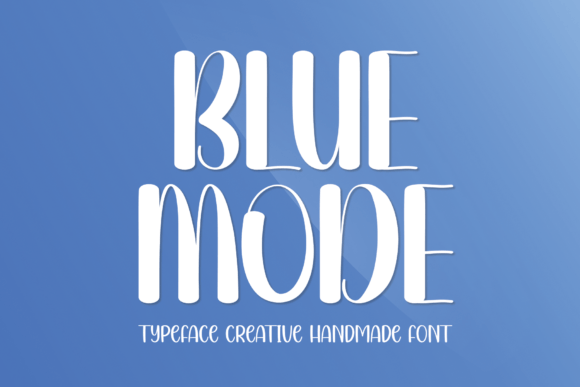
Journey into the world of typography and discover Blue Mode Font - a captivating handwritten font exuding charm and personality. Inspired by the artistry of calligraphy, it dances across the screen with a touch of elegance, making it the perfect choice for expressing your creativity. Whether it's for a wedding invitation, a heartfelt card, or a delightful design project, Blue Mode Font adds a dash of whimsy and warmth to every creation.
Indulge in the beauty of its carefully crafted strokes, each one a testament to the art of penmanship. Its free-flowing style brings a sense of authenticity, allowing your words to flow with grace and fluidity. Dive into a world of endless possibilities with Blue Mode Font, where imagination meets artistry.
With its versatility, Blue Mode Font adapts seamlessly to a myriad of projects, effortlessly enhancing their visual appeal. Craft stunning logos that exude sophistication, or create social media posts that captivate your audience with their charm. Enchant your designs with a touch of handwritten elegance, leaving an imprint of individuality and style.
So, embrace the allure of Blue Mode Font and embark on a creative journey that transcends boundaries. Let your imagination soar as you explore the realm of typography and create designs that resonate with your audience. Embrace the power of handwritten artistry and turn your creative visions into captivating realities.